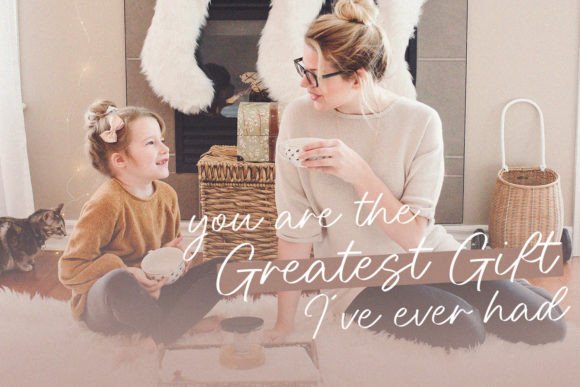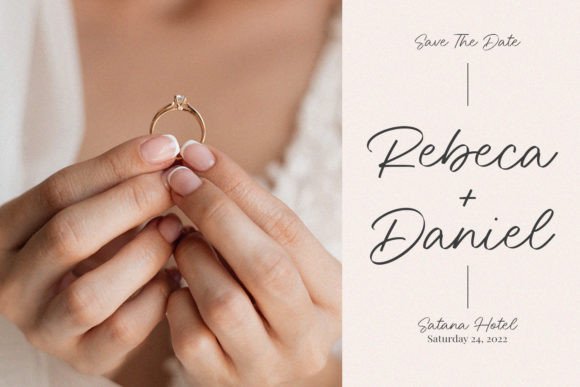
Calmsie Font
Calmsie is a handwritten font created with great care, especially for you. 😊
Calmsie is perfect for product packaging, branding project, magazines, social media, weddings, or just used to express words above the background.